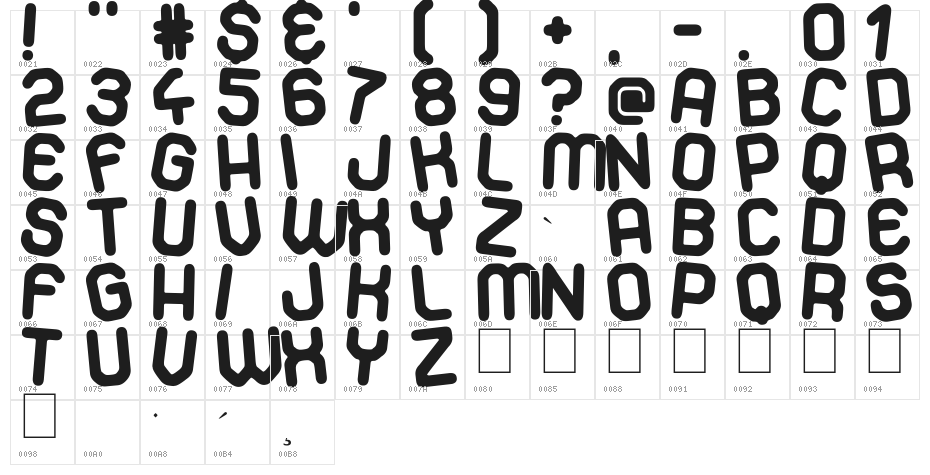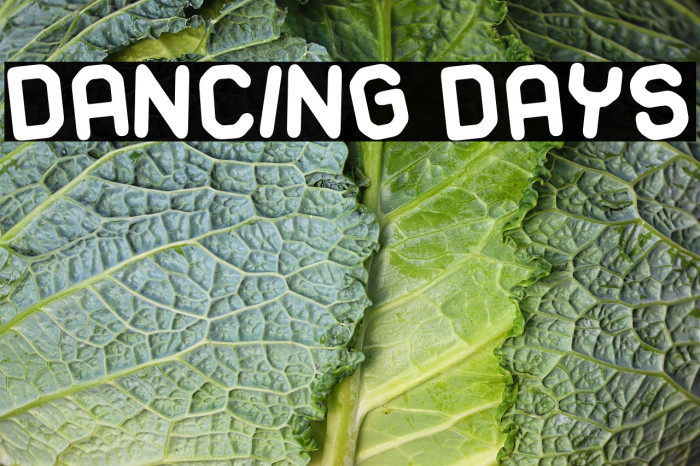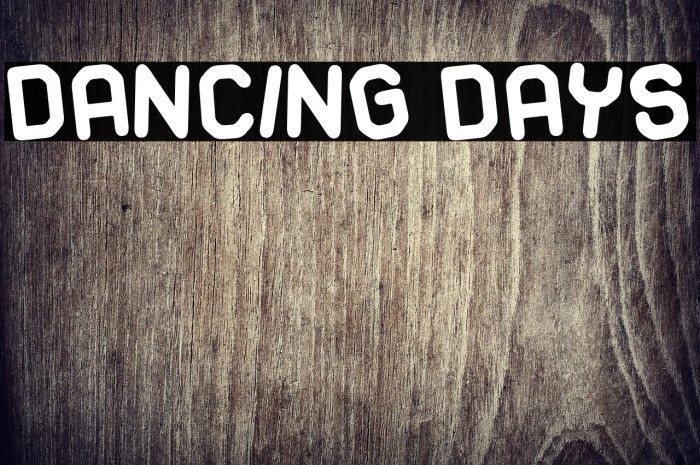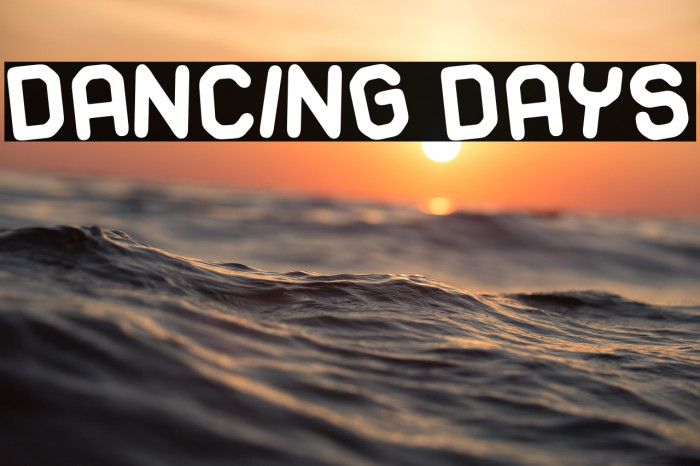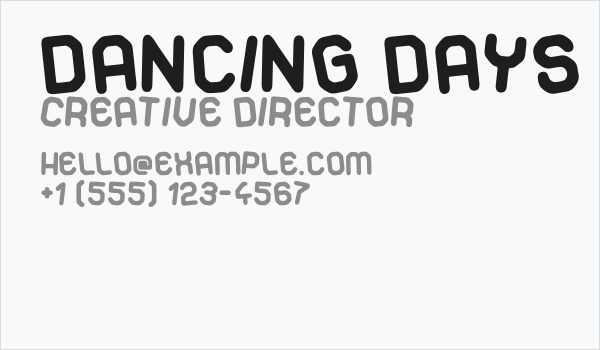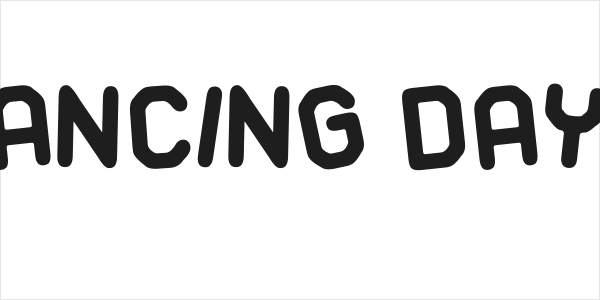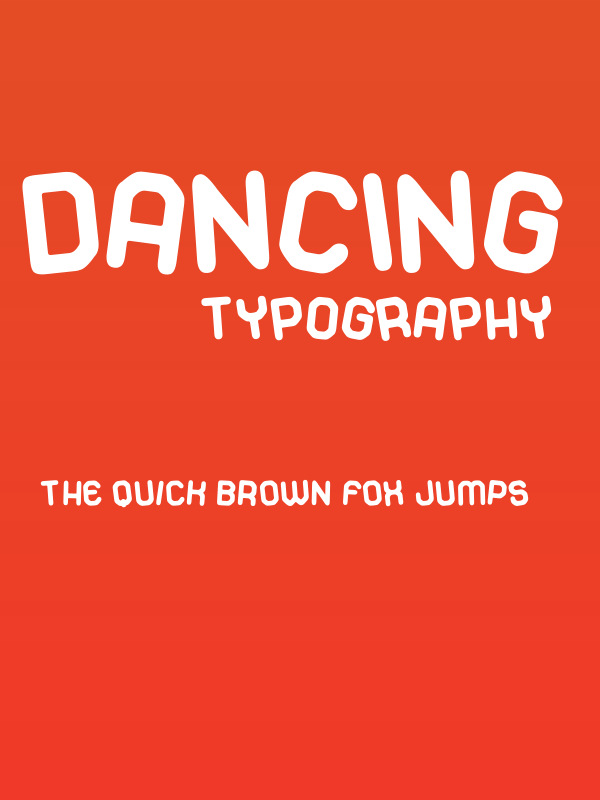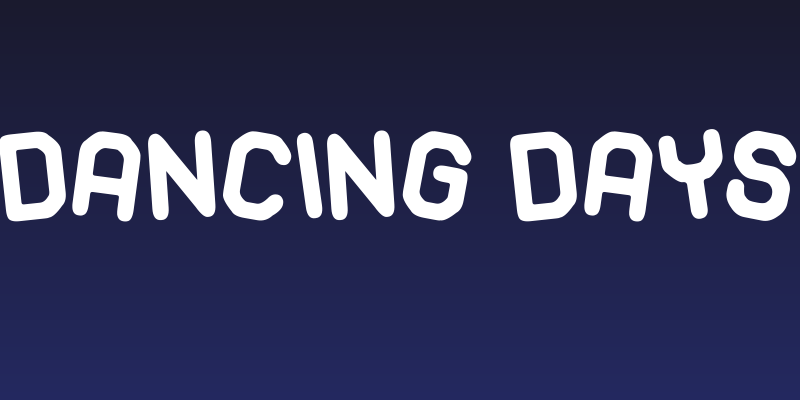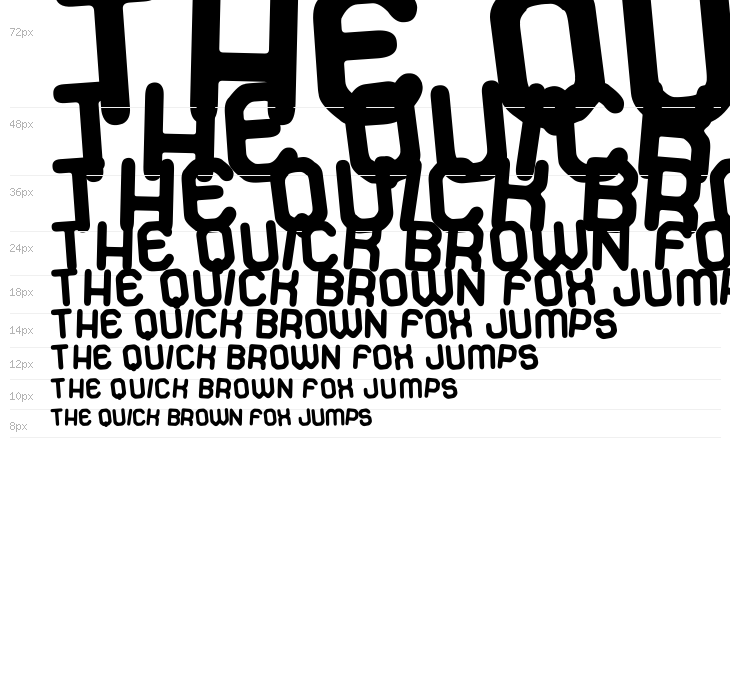
Dancing Days Font
Dancing Days Description
This font features a playful and rounded style with a bold presence. The characters are uniformly thick, giving it a consistent and cohesive look. The rounded edges and slightly irregular shapes add a whimsical and friendly feel, making it ideal for projects that require a touch of fun and approachability. The uppercase and lowercase letters maintain a similar width, ensuring readability while adding a unique character to the text. The numbers and special characters follow the same design principles, providing a harmonious appearance across all elements.
| Overall Style | Playful |
| Proposed Projects | Ideal for children's books, playful branding, party invitations, and casual posters. |